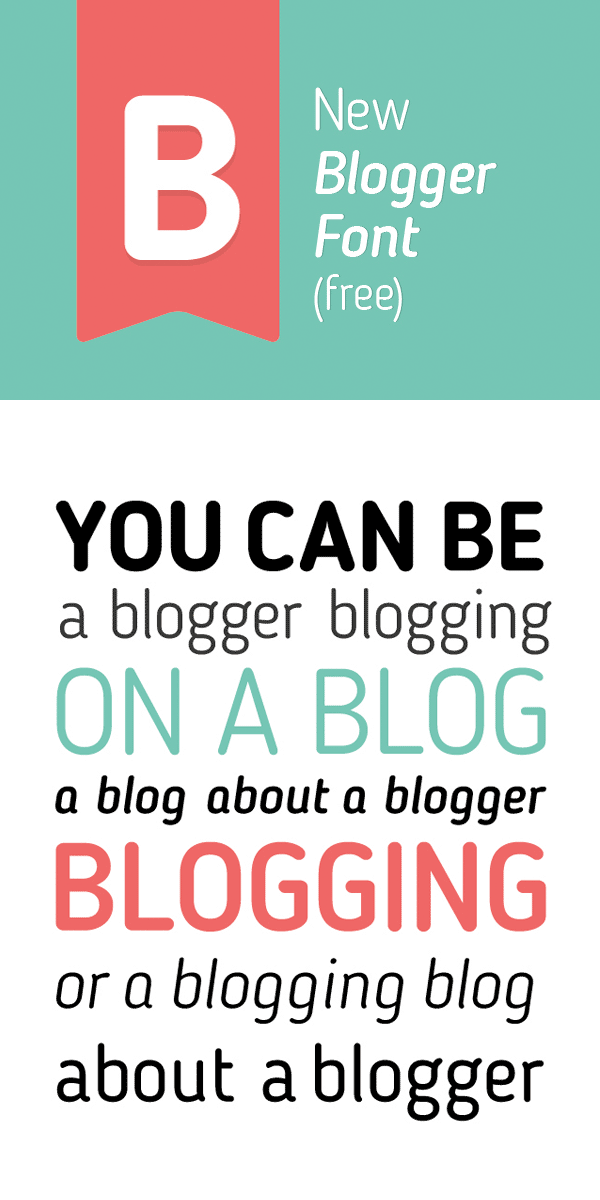
According to FirstSiteGuide, Blogger Sans was designed by Sergiy Tkachenko as the FirstSiteGuide’s custom typeface, created primarily for the use in headlines of the website. Blogger Sans draws inspiration from the clarity and legibility of the popular font Dosis with an additional support of the lost Cyrillic languages.
Styles: 8 (Light, Regular, Medium, Bold + italic)